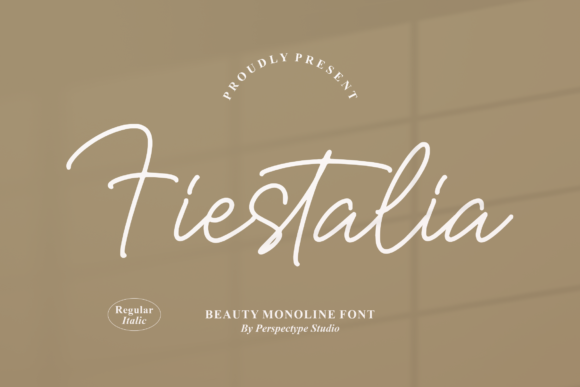
Introducing Fiestalia Font - A Script Font That Embraces Simplicity and Sophistication
Meet Fiestalia, a dazzling script font crafted by the ingenious minds at Perspectype. Designed to captivate and inspire, Fiestalia is not just a font; it's an artistic expression that effortlessly blends contemporary style with timeless elegance.
With its graceful curves, delicate strokes, and an innate sense of playfulness, Fiestalia is the perfect choice for designers, bloggers, and creative entrepreneurs seeking to make a lasting impression. Its versatile nature makes it suitable for an array of projects, from logos and branding to photography, watermarks, and special events.
Immerse yourself in the world of Fiestalia and discover a font that embodies harmony, balance, and sophistication. Its meticulously crafted characters dance across the screen, evoking a sense of artistry and refined elegance. Whether you're creating a medical website, designing a captivating logo, or personalizing your creative projects, Fiestalia is your ultimate companion.
At Perspectype, we believe that fonts have the power to transform words into art. With Fiestalia, we've created a font that speaks to the heart and captivates the eyes. It's a font that invites you to explore your creativity, to push boundaries, and to leave a lasting impression on your audience.